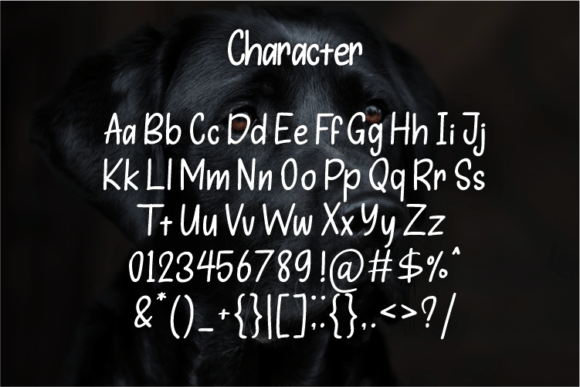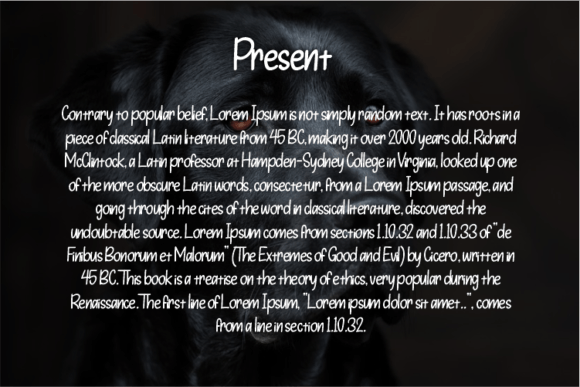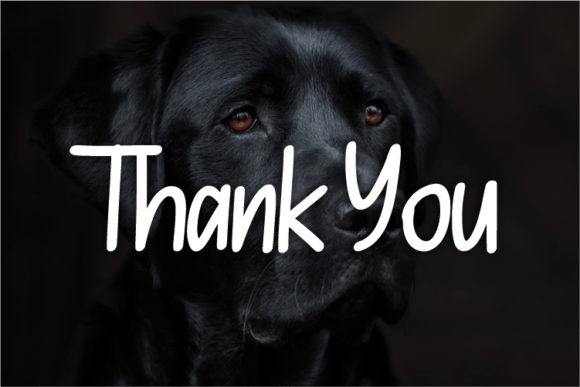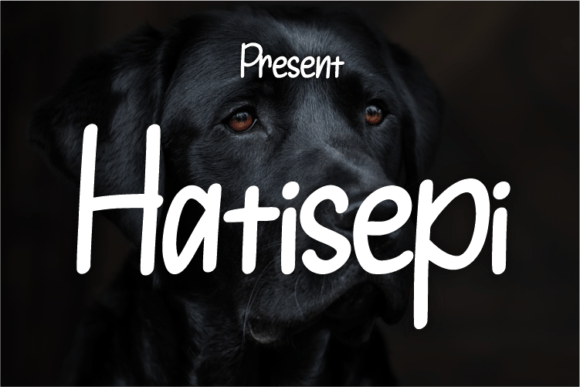
Hatisepi Font: Elevate Your Designs with Elegance and Luxury
In the world of typography, a font can make or break a design. For designers and crafters seeking to add a touch of sophistication and modernity to their work, the Hatisepi Font is an excellent choice. This script typeface boasts a simple yet stylish aesthetic, perfect for creating elegant and luxurious designs that stand out.
The Characteristics of Hatisepi Font
Hatisepi is a script typeface that exudes simplicity and modernity. Its clean lines, subtle curves, and balanced proportions make it an ideal choice for a wide range of design applications. The font’s simple style belies its elegance, making it perfect for designs that require a touch of sophistication.
Perfect for Luxurious and Elegant Designs
Whether you’re working on a logo, book or movie title design, fashion brand, magazine, or clothing font, Hatisepi is an excellent choice. Its luxurious feel and modern look make it perfect for:
- Elegant logos that require a touch of sophistication
- Book and movie title designs that need to make a lasting impression
- Fashion brands seeking to convey luxury and style
- Magazines and publications that require a high-end feel
- Clothing fonts that need to exude elegance and sophistication
- Quotes and phrases that require a touch of luxury
Why Choose Hatisepi Font?
So, why should designers and crafters choose Hatisepi Font for their projects? Here are just a few reasons:
- Versatility: Hatisepi is a versatile font that can be used in a wide range of design applications, from logos and titles to magazines and clothing.
- Elegance: The font’s simple yet stylish aesthetic makes it perfect for designs that require a touch of sophistication and luxury.
- Modernity: Hatisepi’s modern look ensures that your designs stay fresh and contemporary.
- Easy to Read: The font’s clean lines and balanced proportions make it easy to read, even at small sizes.
Tips for Using Hatisepi Font
To get the most out of Hatisepi Font, here are a few tips:
- Pair with Other Fonts: Hatisepi pairs well with other fonts, so don’t be afraid to experiment with different combinations.
- Use for Headings and Titles: The font’s elegant and luxurious feel makes it perfect for headings and titles.
- Experiment with Colors: Hatisepi looks great in a range of colors, so try experimenting with different hues to find the perfect fit for your design.
In conclusion, Hatisepi Font is a versatile and elegant script typeface that’s perfect for designers and crafters seeking to add a touch of sophistication and luxury to their work. Its simple yet stylish aesthetic, modern look, and ease of use make it an excellent choice for a wide range of design applications. Whether you’re working on a logo, book or movie title design, fashion brand, magazine, or clothing font, Hatisepi is sure to elevate your designs to the next level.